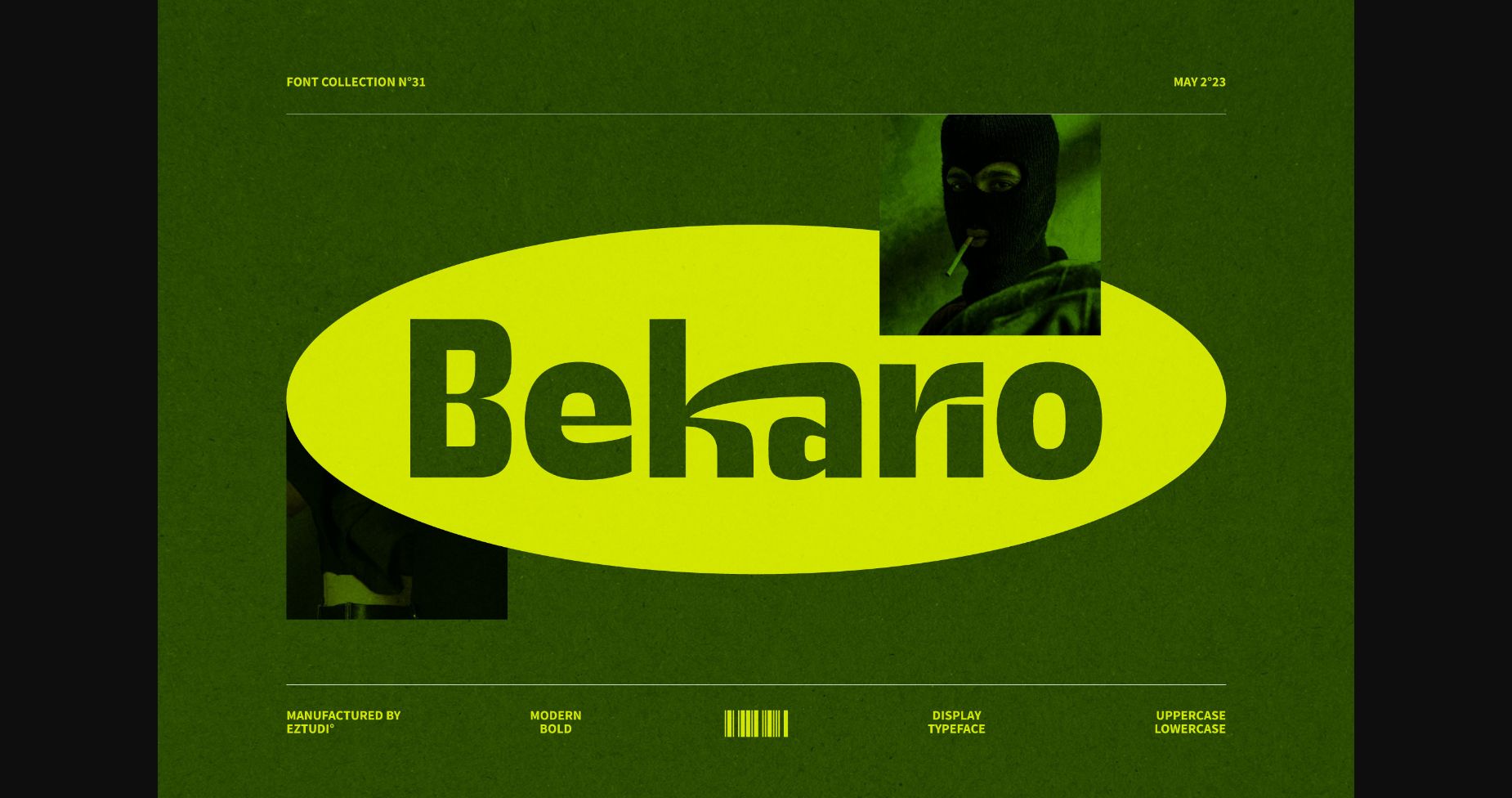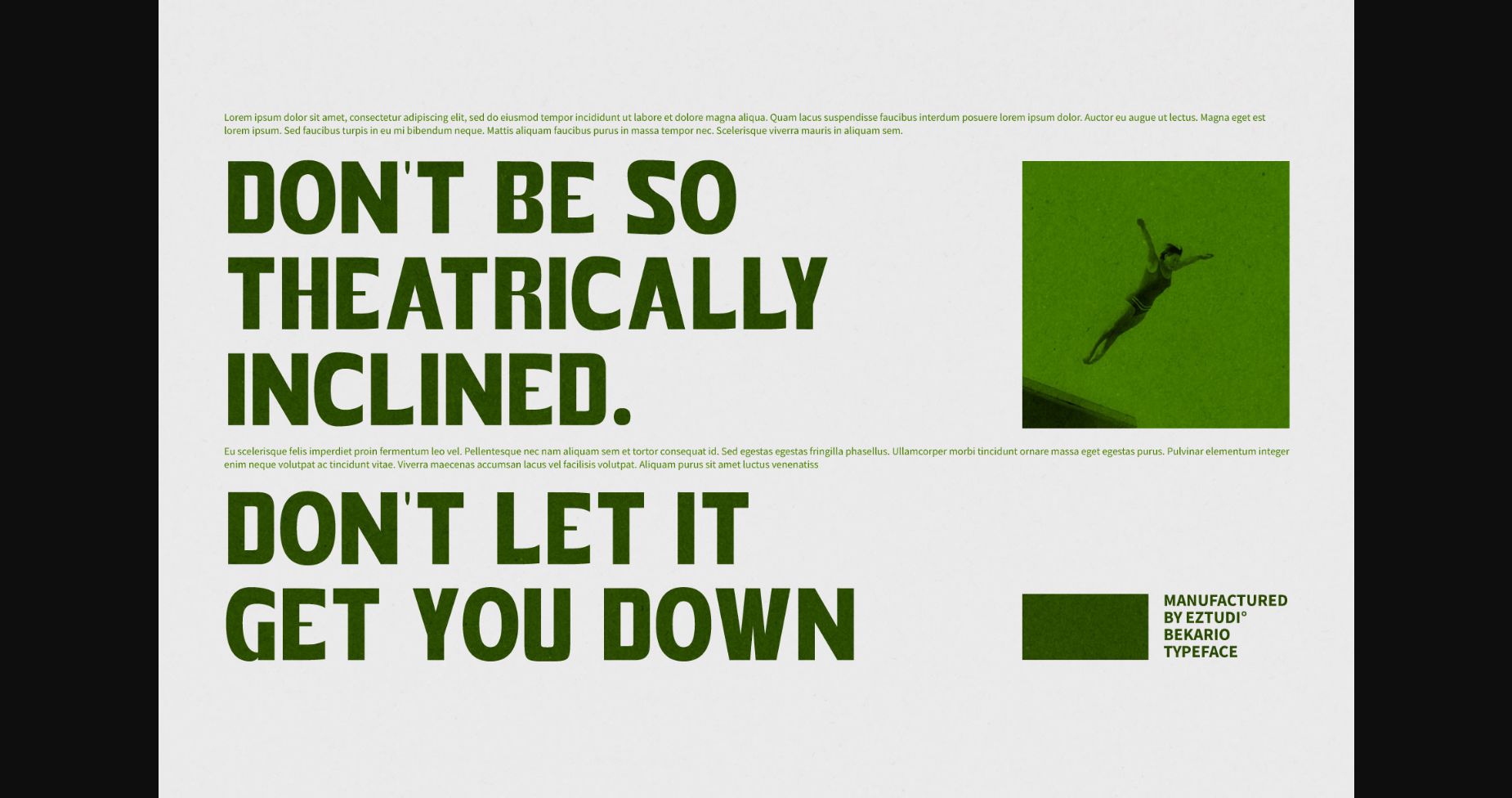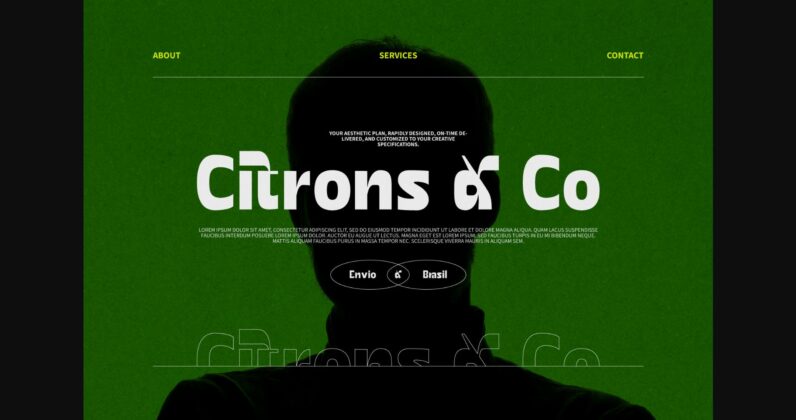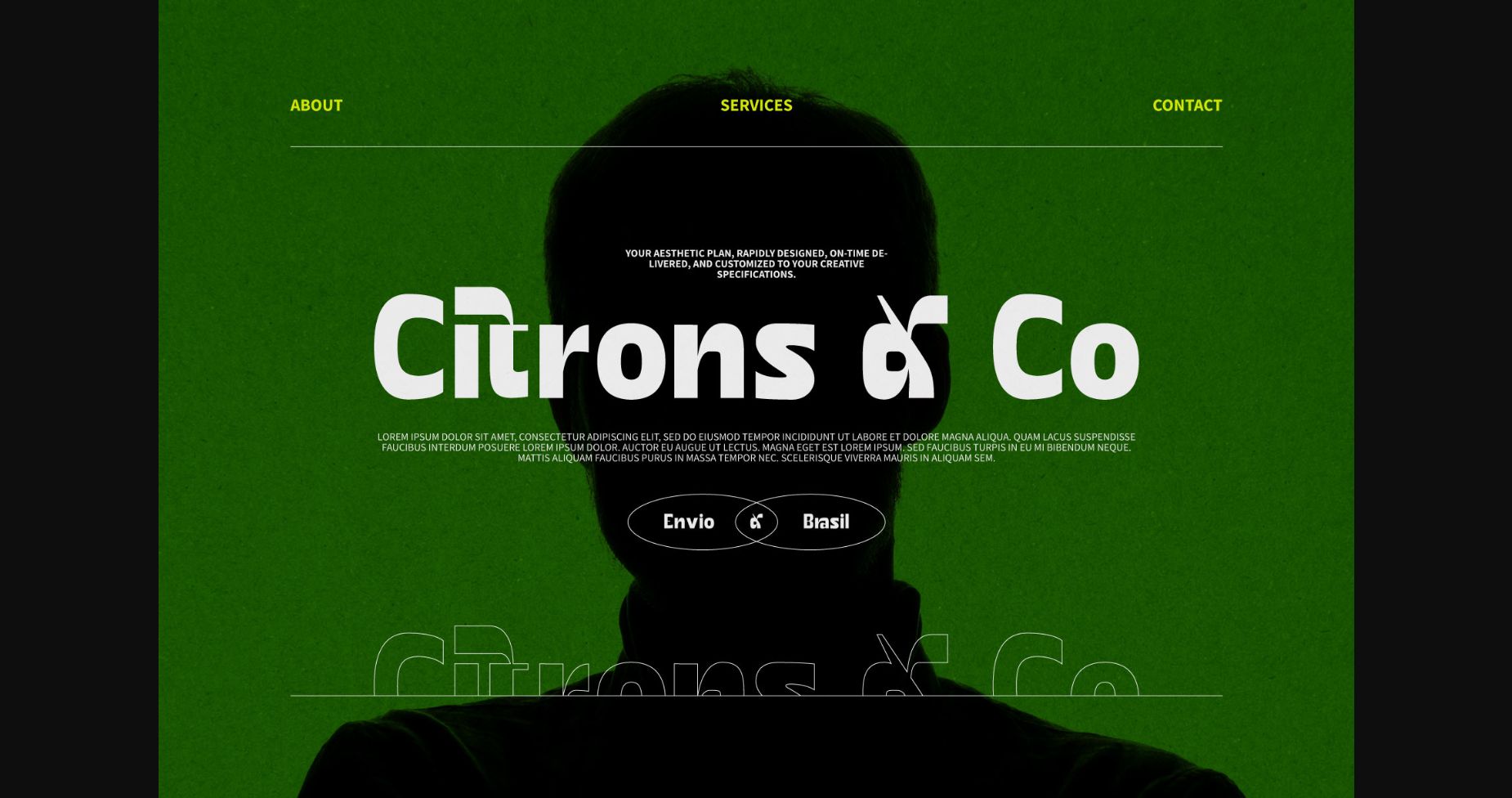
About Bekario Font
Bekario Sans Modern Display is a font that brings a fresh and contemporary touch to any design project. This modern display sans font can be used to create elegant and luxurious design displays, such as logos, and titles, and used on web or social media displays. Bekario is the perfect font selection for those seeking something modern and unusual for their upcoming project.